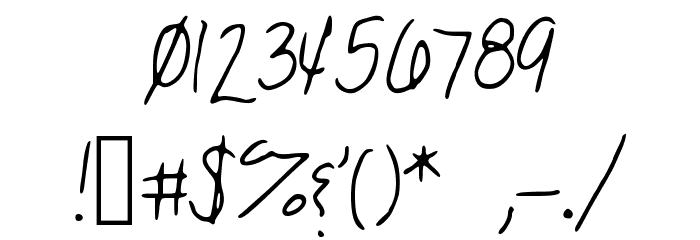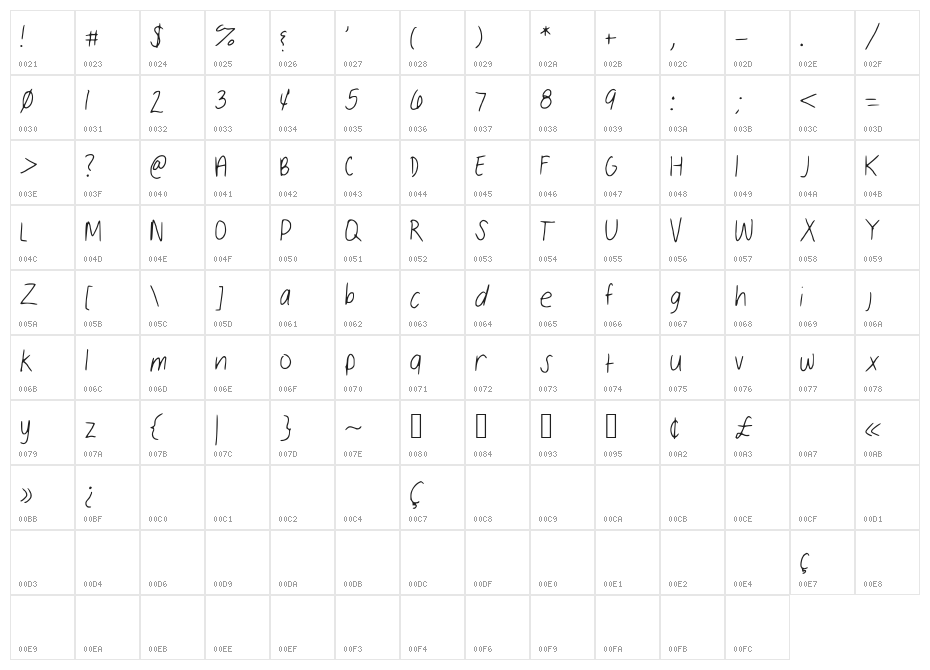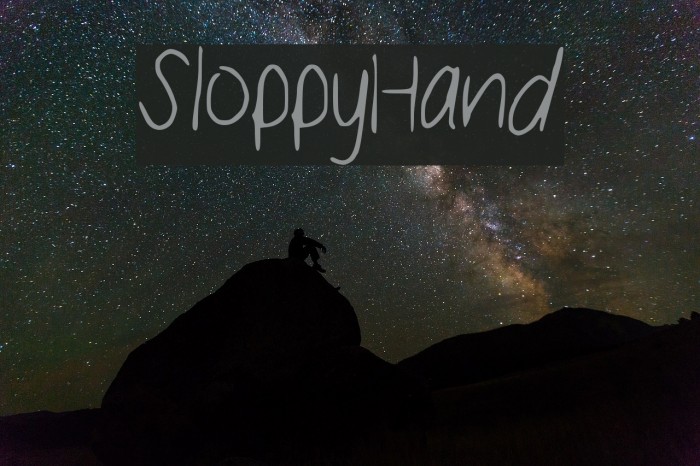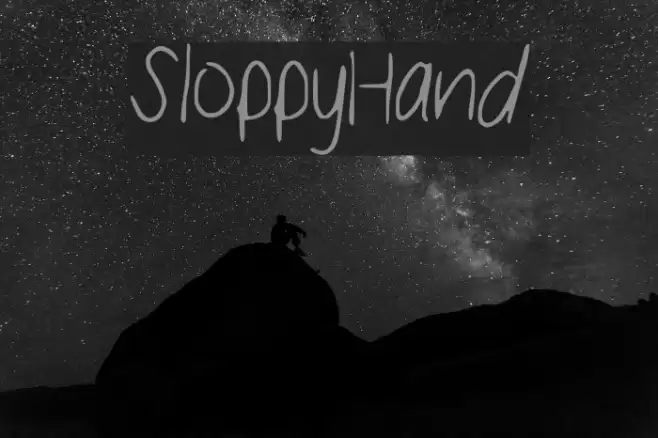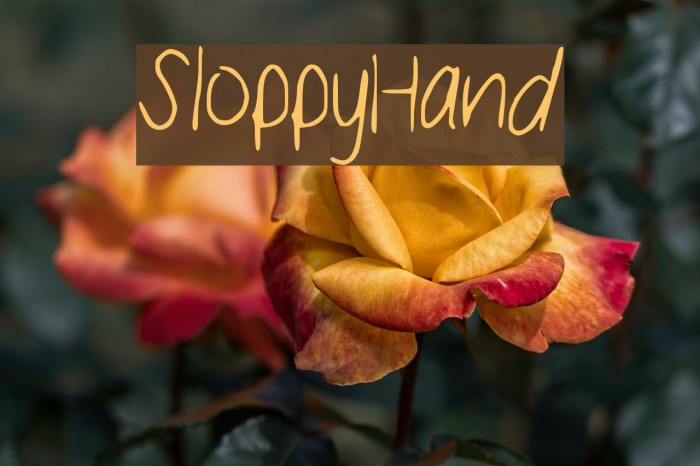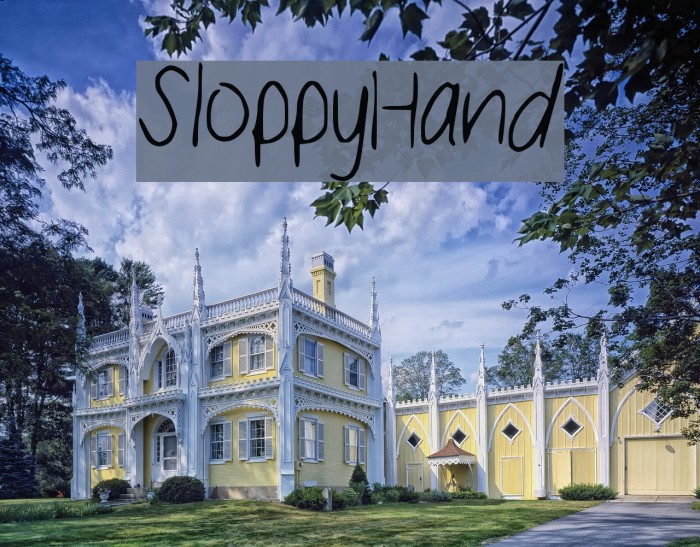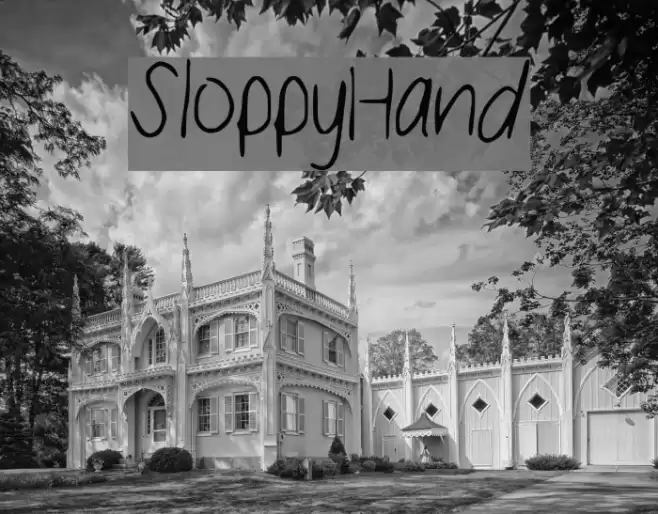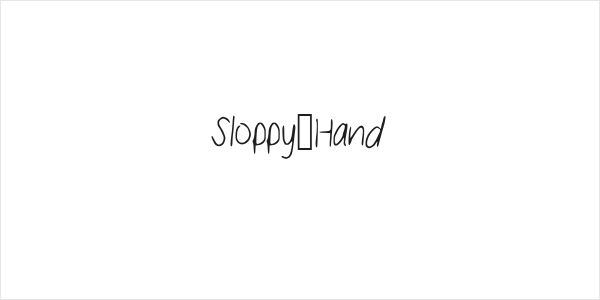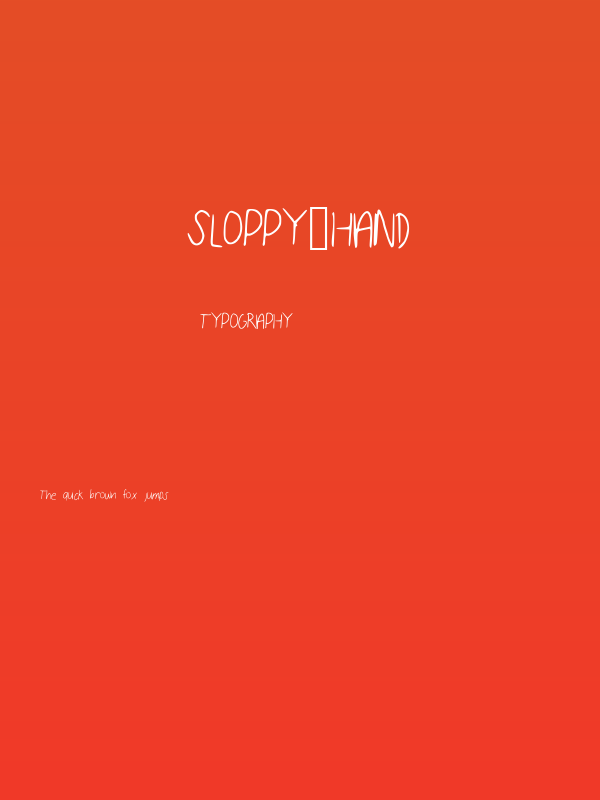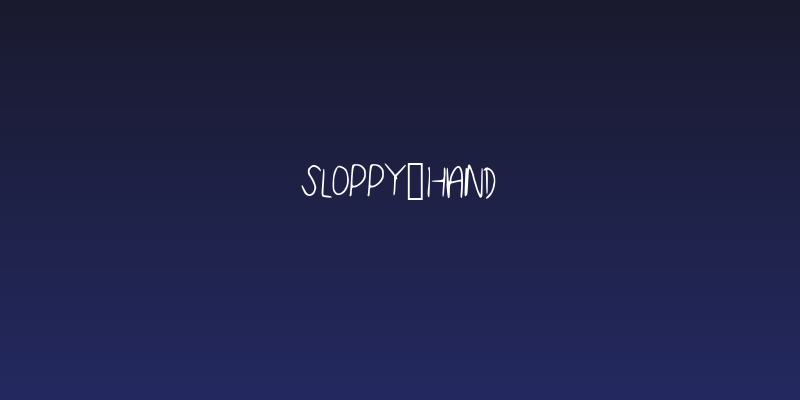
Sloppy_Hand Font
Sloppy_Hand Description
This font features a casual, handwritten style that mimics the natural flow of penmanship. The letters are slightly irregular, giving it a personal and informal touch. Each character is distinct, with varying heights and angles, adding to its charm. The strokes are smooth yet varied in thickness, providing a dynamic and lively appearance. This font is perfect for projects that require a personal, friendly, and approachable feel. It captures the essence of spontaneity and creativity, making it ideal for artistic and informal applications.
| Overall Style | Casual, Creative |
| Proposed Projects | Ideal for greeting cards, personal notes, creative projects, and informal branding. |